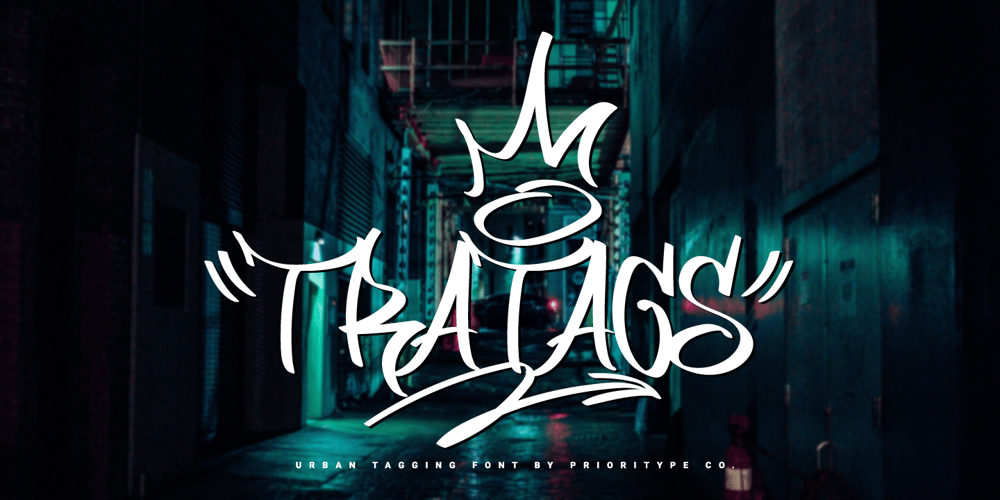
Tratags Font Family was designed by Prio Nurokhim Aji and published by Prioritype. Tratags contains 1 styles and family package options. Cool and youthful fonts. You can apply it to clothing designs, posters, merchandise, album covers, etc. See some of the previews above for reference.Features:-Uppercase-Numeral-Punctuation-Multilingual-PUA Encoded-Opentype FeaturesNote: Use a program that supports the Opentype features and the glyph panel is available, so you can see the various alternative characters available. Examples of programs such as Adobe Illustrator, Corel Draw or Inkscape.